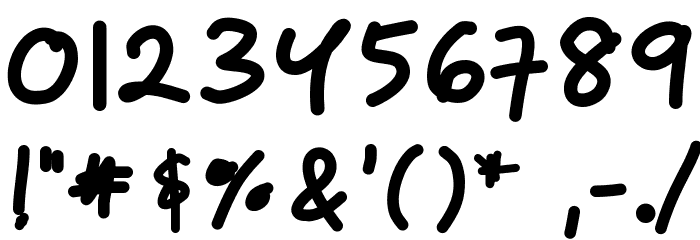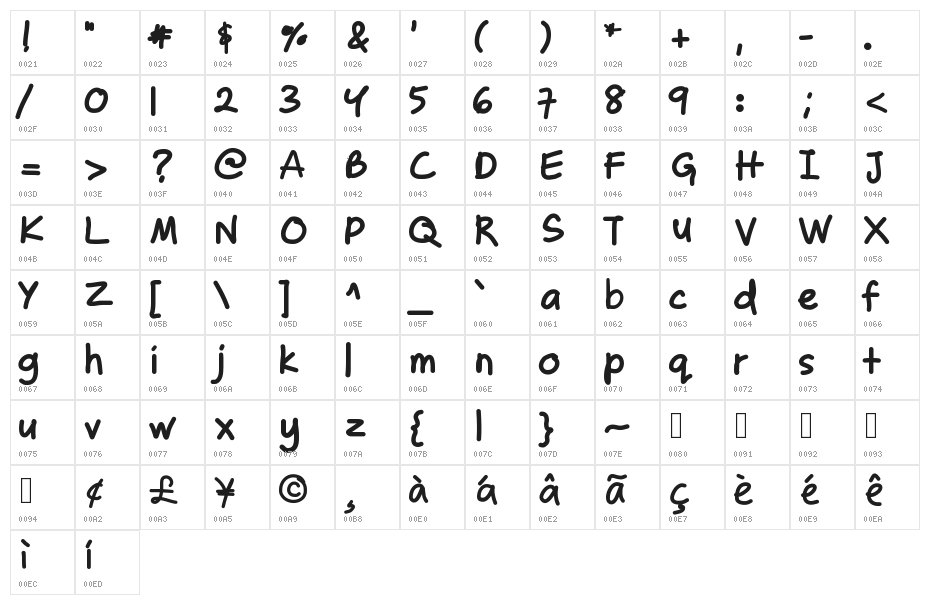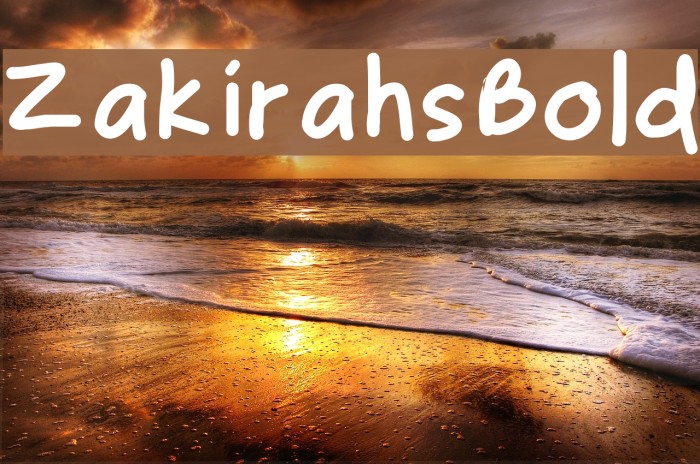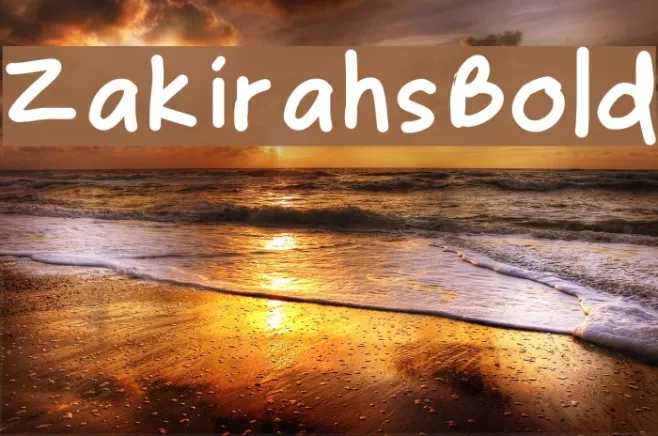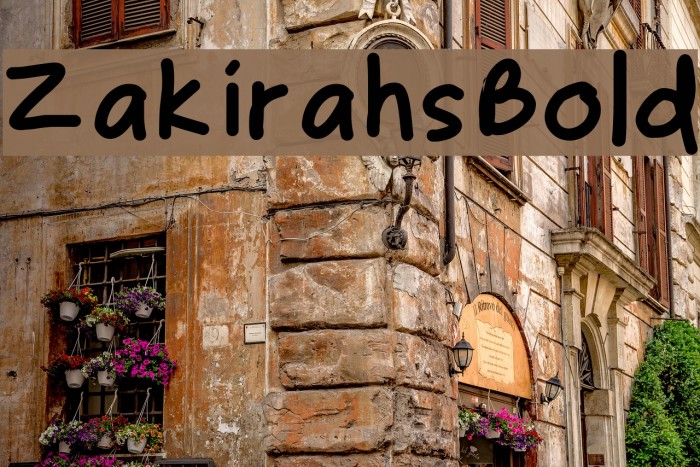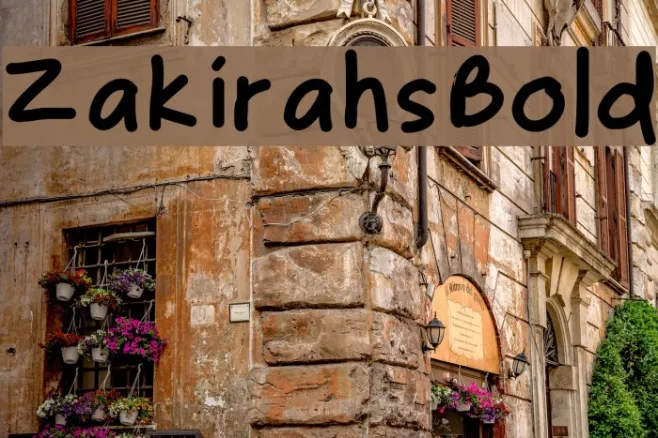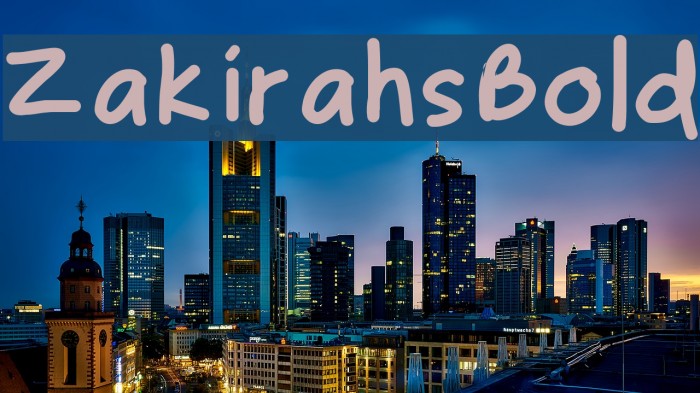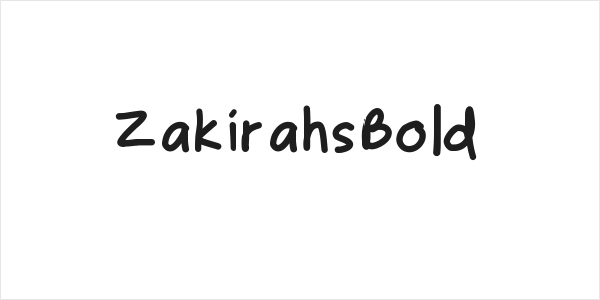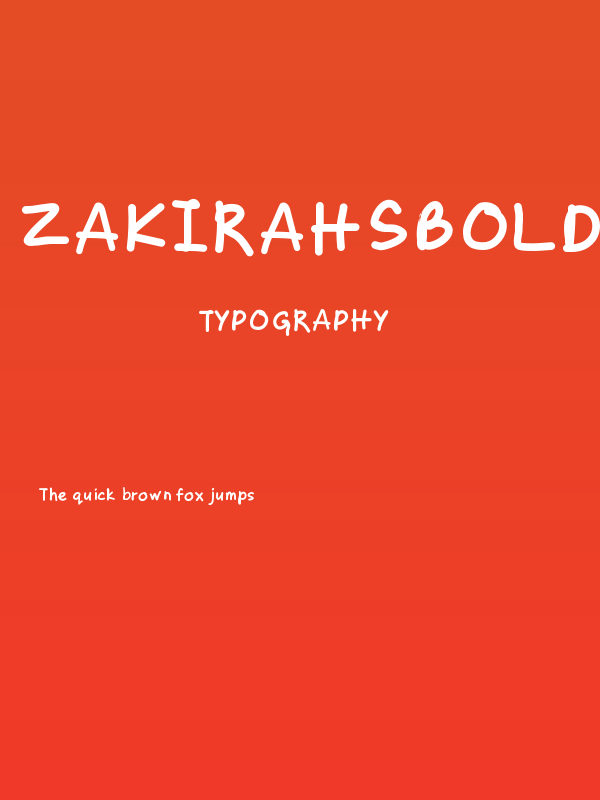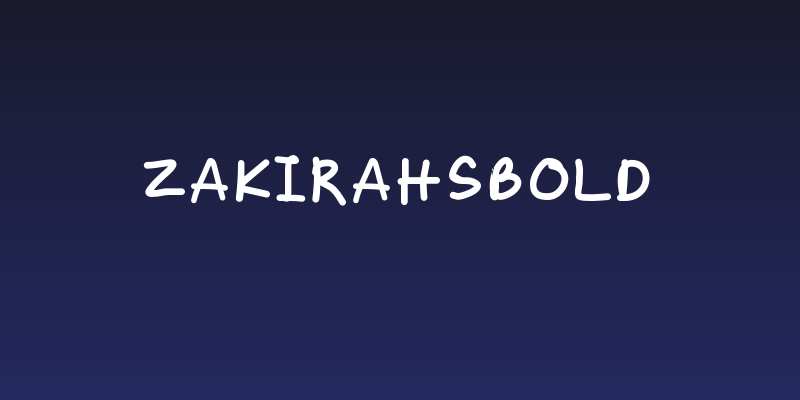
ZakirahsBold Font
ZakirahsBold Description
This font features a playful and informal handwritten style, characterized by its bold and rounded letterforms. The strokes are thick and consistent, giving it a strong presence on the page. Each character has a slightly irregular shape, adding to its casual and approachable feel. The uppercase and lowercase letters are well-balanced, with a slight slant that enhances its dynamic appearance. The numerals and special characters maintain the same whimsical style, making it versatile for various design needs. Overall, this font exudes a friendly and energetic vibe, perfect for projects that require a personal touch.
| Proposed Projects | Ideal for children's books, greeting cards, playful branding, and casual invitations. |